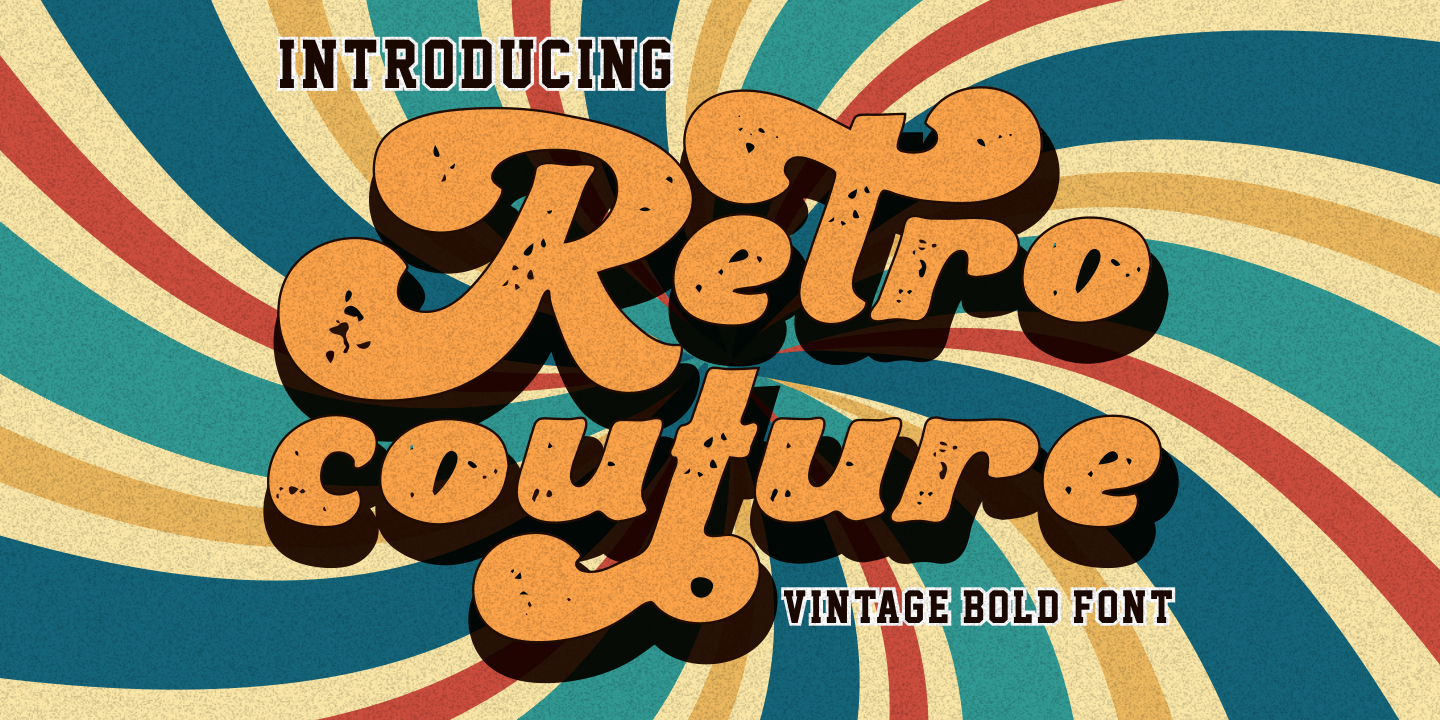
Retro Couture Font is perfect for vintage fashion branding, retro boutique signage, classic beauty salon logos, nostalgic advertising campaigns, mid-century modern designs, elegant vintage packaging, upscale vintage events, and sophisticated designs that require timeless haute couture elegance.
This font is exciting because it captures the glamorous sophistication of vintage fashion houses through its elegant letterforms that evoke the golden age of haute couture and classic style icons. The refined character design embodies the timeless elegance of mid-century fashion culture, making it perfect for brands seeking to channel vintage glamour with contemporary sophistication.
Retro Couture Font belongs to the vintage display font family, featuring fashion-inspired styling and couture elements that enhance its authenticity for luxury fashion and beauty-focused design applications.
Whether you're creating vintage fashion branding or classic beauty industry graphics, Retro Couture Font Free Download delivers exceptional vintage glamour and couture sophistication. This typeface perfectly balances historical fashion heritage with modern design functionality, making it essential for designers working on luxury projects that celebrate timeless style and elegance. The font's glamorous presence works magnificently in fashion communications, beauty branding, and vintage-inspired marketing, providing optimal readability while maintaining its couture character that transforms any design with vintage sophistication across all media platforms and fashion communications.